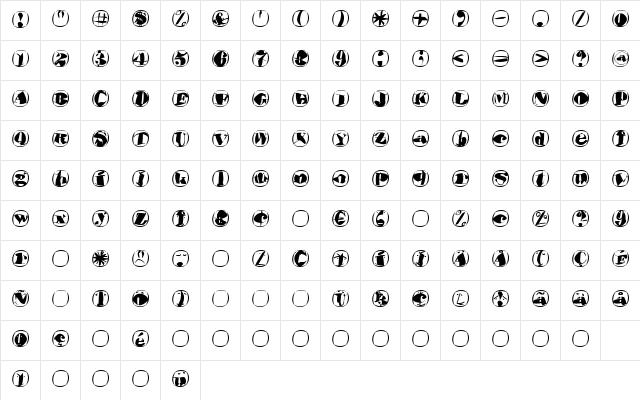
Aftermath Manhattan
Design Context for Aftermath Typeface
Aftermath is a composed and adaptable typeface that performs quietly and consistently across a wide range of design contexts.